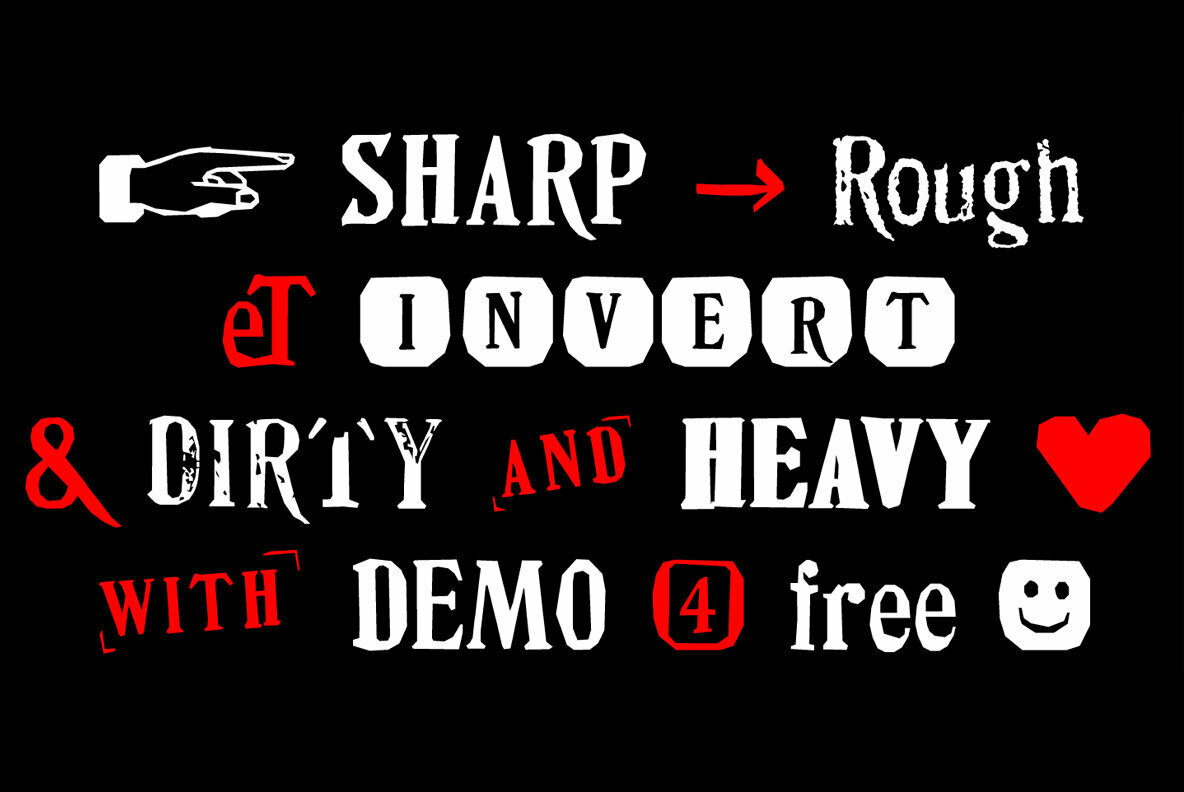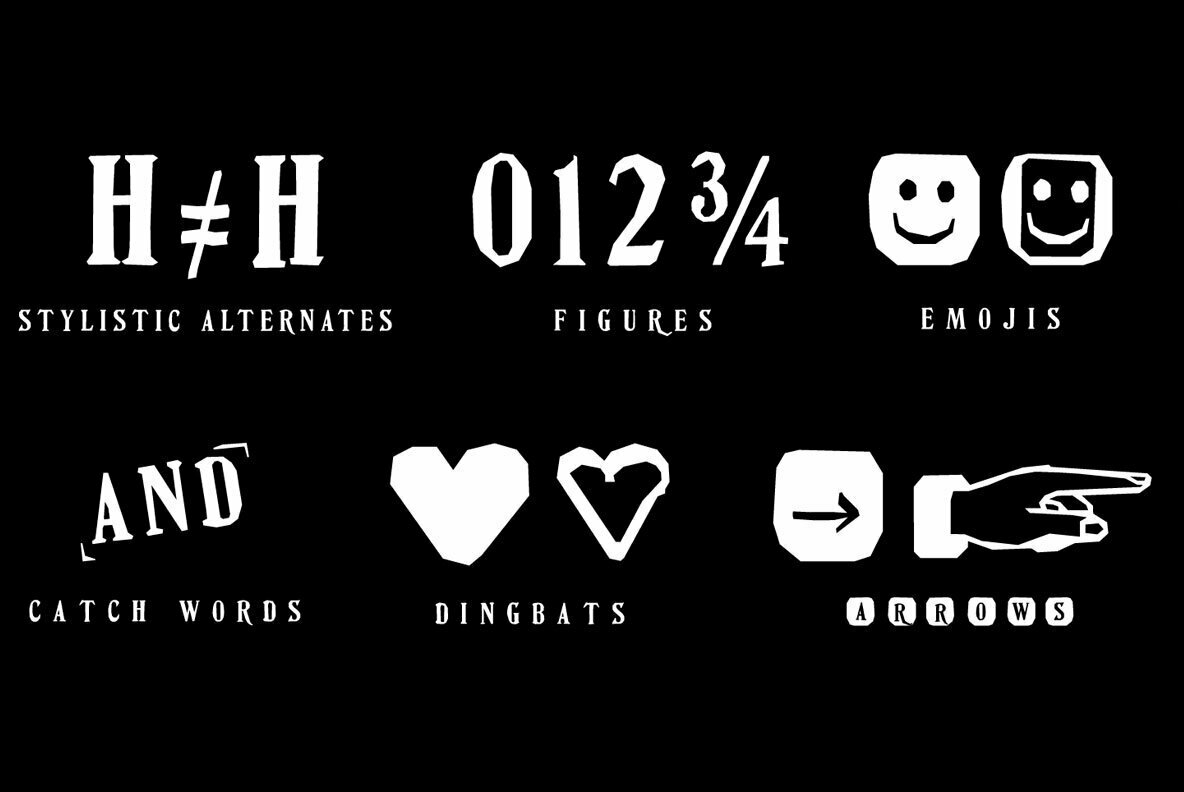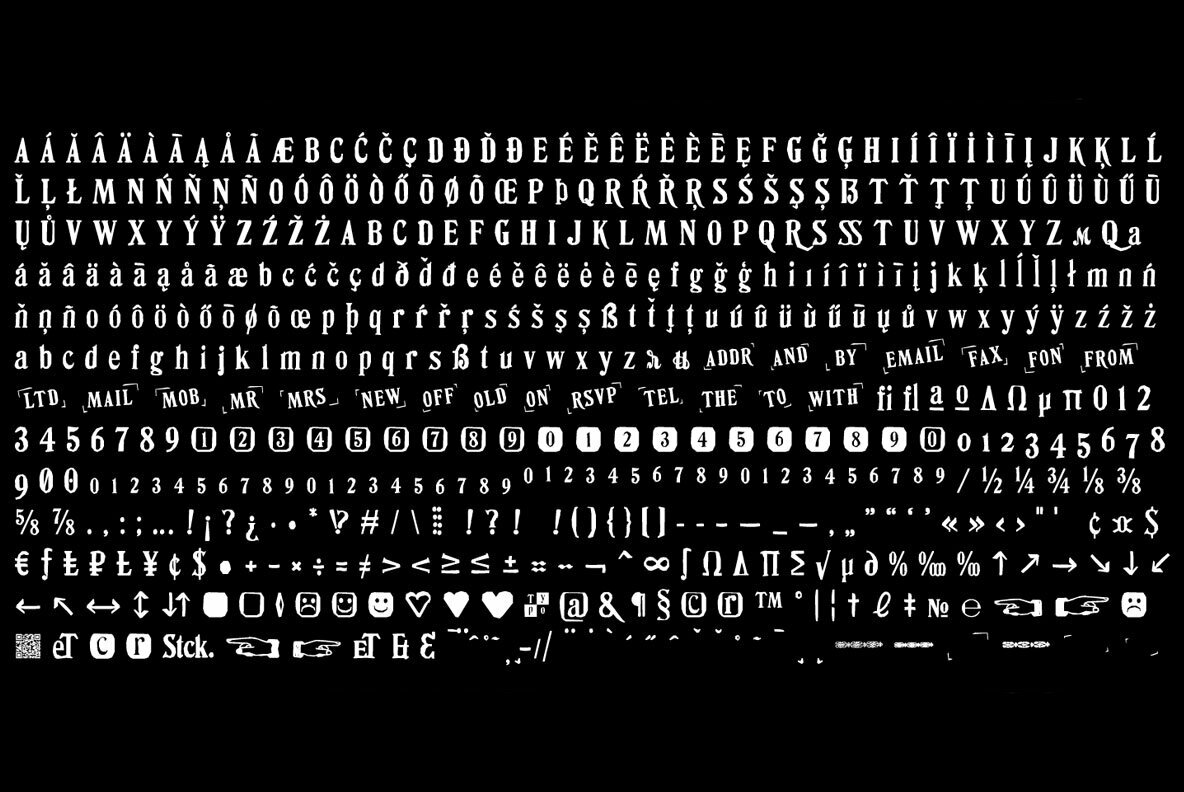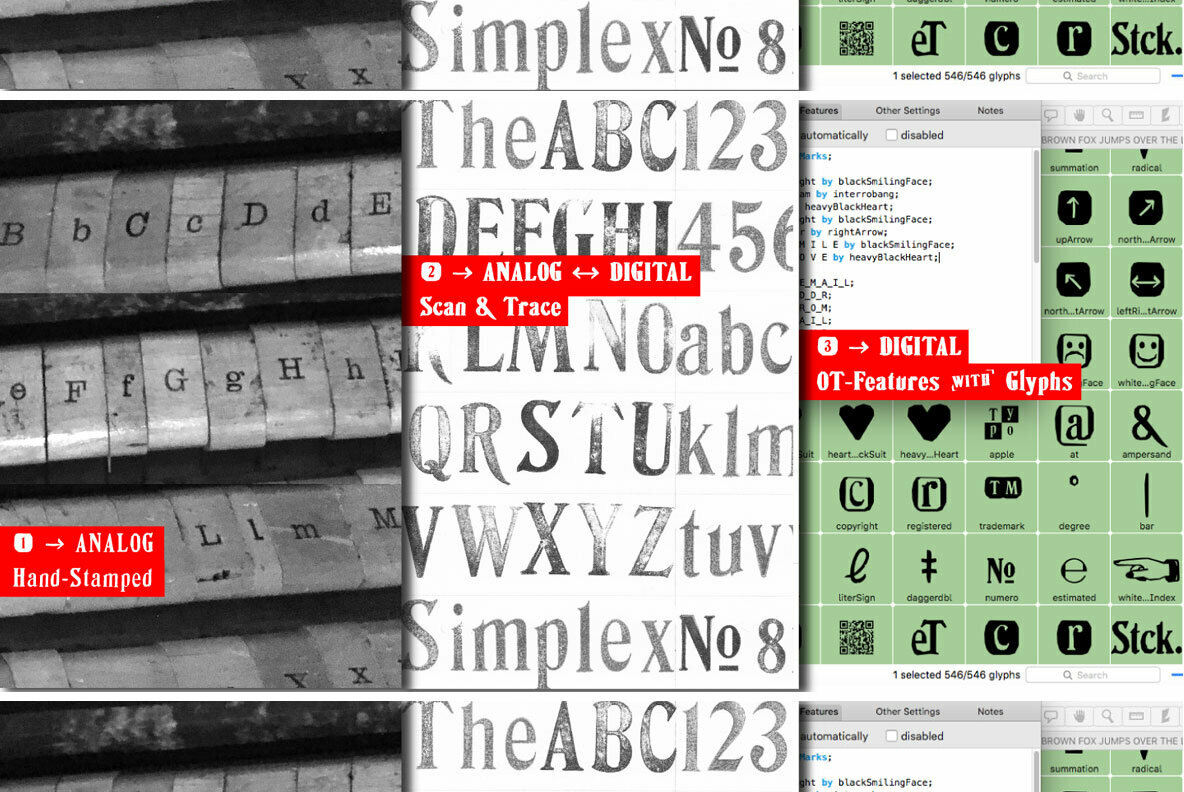
DIY Fantasy Stamp Font
The typeface DIY Fantasy Stamp is designed in 2020 for the font foundry Typo Graphic Design by Manuel Viergutz. The display typeface is inspired by the crafts of 20s and 40s.
The basis for this authentic stamp font was a letter case with a rubber stamp from Simplex. This analog character set of 85 stamps, was digitally extended to 500+ glyphs.
5 font-styles (Sharp, Dirty, Rough, Invert, Heavy) with 546 glyphs (Adobe Latin 3) incl. decorative extras like icons, arrows, dingbats, emojis, symbols, geometric shapes, catchwords, decorative ligatures (type the word #LOVE for or #SMILE for as OpenType-Feature dlig) and stylistic alternates (4 stylistic sets).
For use in logos, magazines, posters, advertisement plus as webfont for decorative headlines. The font works best for display size.
■ Font Name: DIY Fantasy Stamp
■ Font Weights: Sharp, Dirty, Rough, Invert, Heavy + DEMO (with reduced glyph-set)
■ Font Category: Display for headline size
■ Glyph Set: 546 glyphs (Adobe Latin 3)
■ Specials: Decorative extras like arrows, emojis, ornaments, geometric shapes, catchwords, decorative ligatures (type the word #LOVE for or #SMILE for as OpenType Feature. dlig) and stylistic alternates (4 stylistic sets)
■ Design Date: 2020
■ Type Designer: Manuel Viergutz